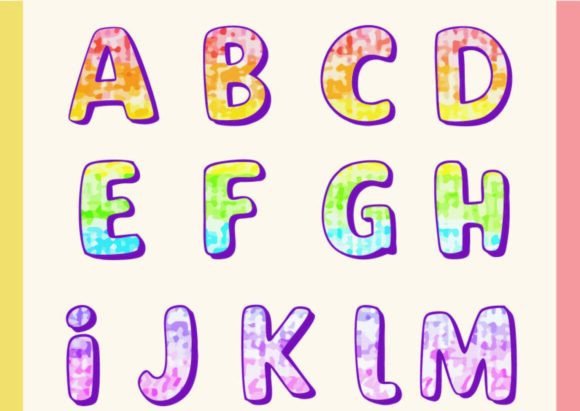
The Blair Font: A Colorful Heaven for Designers and Crafters
I’ll never forget the moment I stumbled upon the Blair font. I was working on a project for a client who wanted a custom logo with a vibrant, playful twist. As I scrolled through font after font, nothing seemed quite right – until I saw Blair. Its colorful, intricate glyphs immediately caught my eye, and I knew I had found the perfect fit. In this article, I’ll share my experience with the Blair font, its features, and how to make the most of it in your designs.
What is the Blair Font?
Blair is a color font, also known as a chromatic font, which means that every single glyph has a different set of colors. It’s like a colorful heaven in typographic form! If you look closely at the glyphs, you’ll see complex sets of paths and connections in every single one of them. Each glyph could be a typographic painting!
- Unique, colorful glyphs that add a playful touch to any design 🎉
- Intricate paths and connections create a beautiful, hand-crafted feel 🌟
- Perfect for designs that require a bit of whimsy and personality 🌈
While Blair is an amazing font, there are a few things to keep in mind:
- As a color font, Blair may not work well in all design contexts – for example, it might not be the best choice for body text or small font sizes 🤔
The Blair font was created with the goal of pushing the boundaries of typographic design. The designer wanted to create a font that was not only beautiful but also fun and playful. Inspired by the intricate details of hand-painted signs and the vibrant colors of street art, Blair was born.